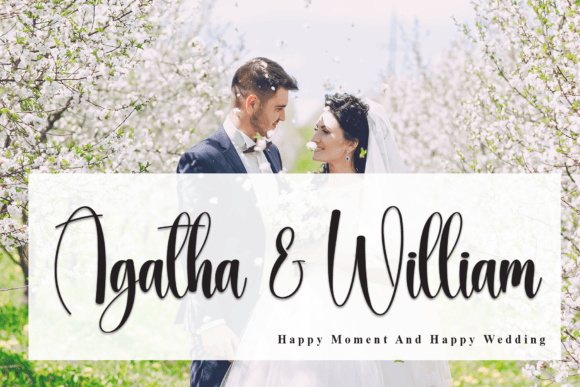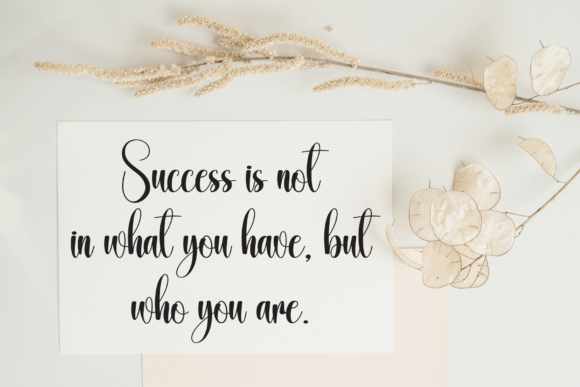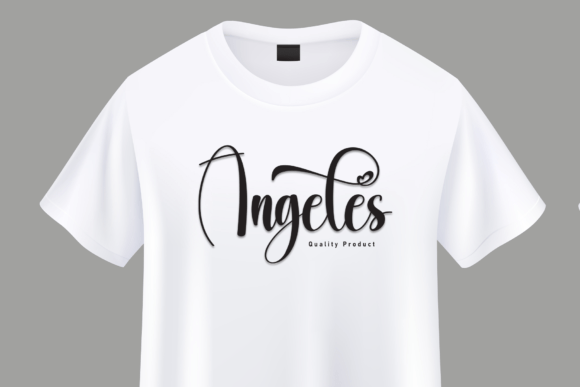
Introduction to Smoothie Bride Font
Smoothie Bride is a sweet and friendly handwritten font.
Why Choose Smoothie Bride Font?
Smoothie Bride Font offers exceptional quality and versatility, making it a valuable addition to your design toolkit. Whether you’re creating for personal projects or commercial use, Smoothie Bride Font delivers professional results.